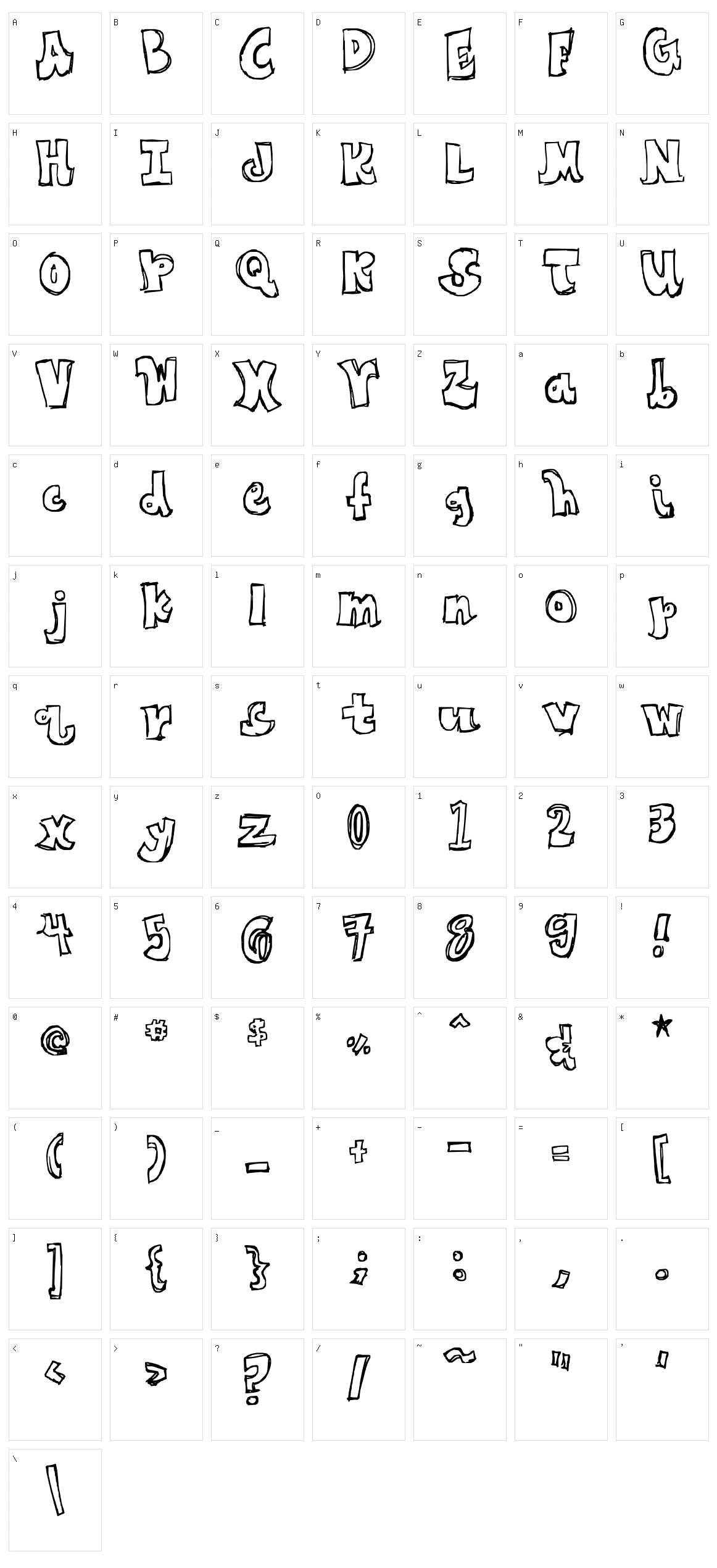
The free font If I Had One Wish is carefully designed by M. Thomas, showcasing a thoughtful balance of creativity and usability and falls under the Cartoon font style. When you download the ZIP file, it contains only 23.53 KB of font files, making it lightweight and quick to download. Please review the license details below to understand permitted usage and distribution rights. If license information is not available, we recommend using this font for personal projects only or contacting the author directly for commercial usage permissions.